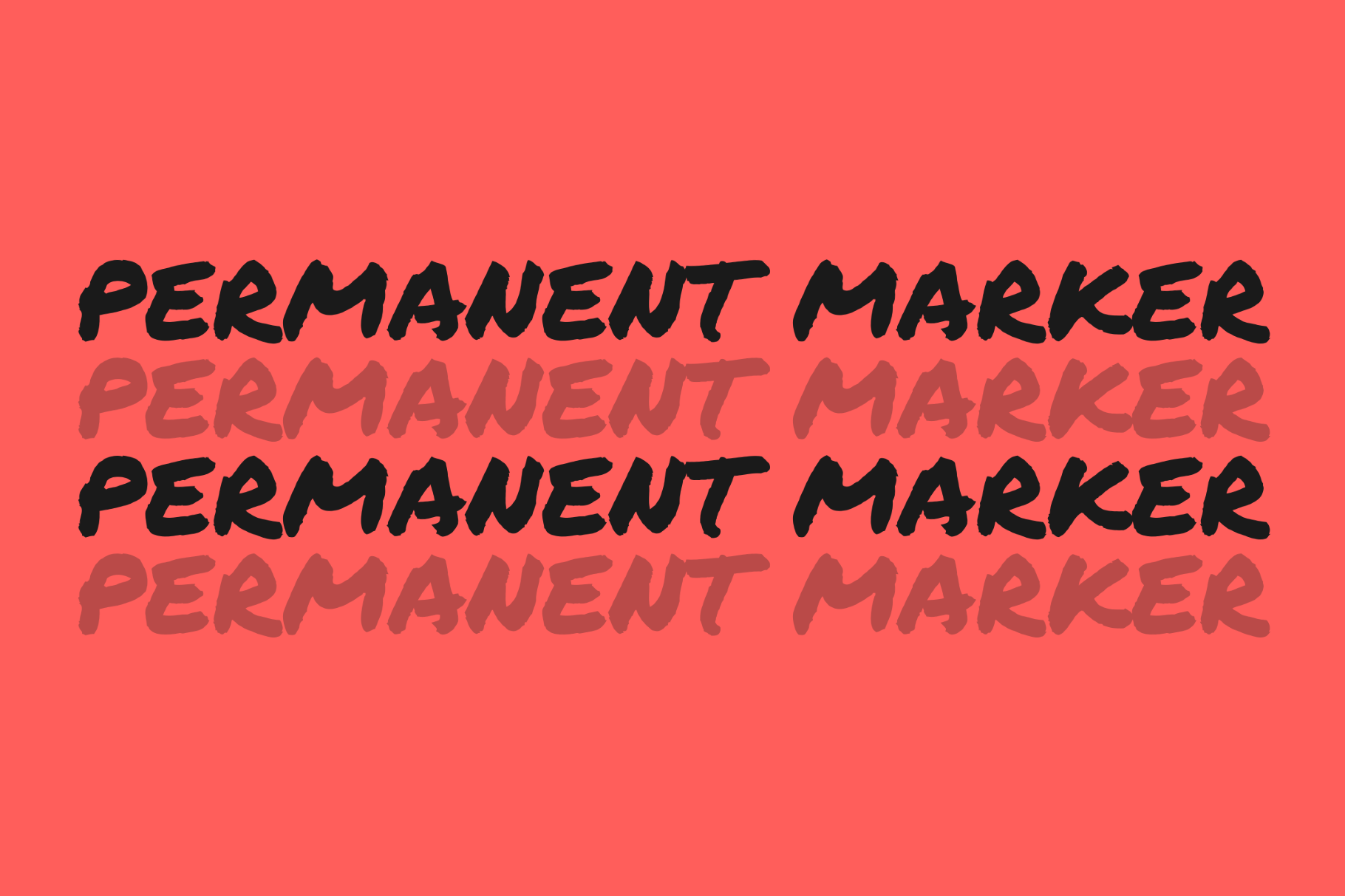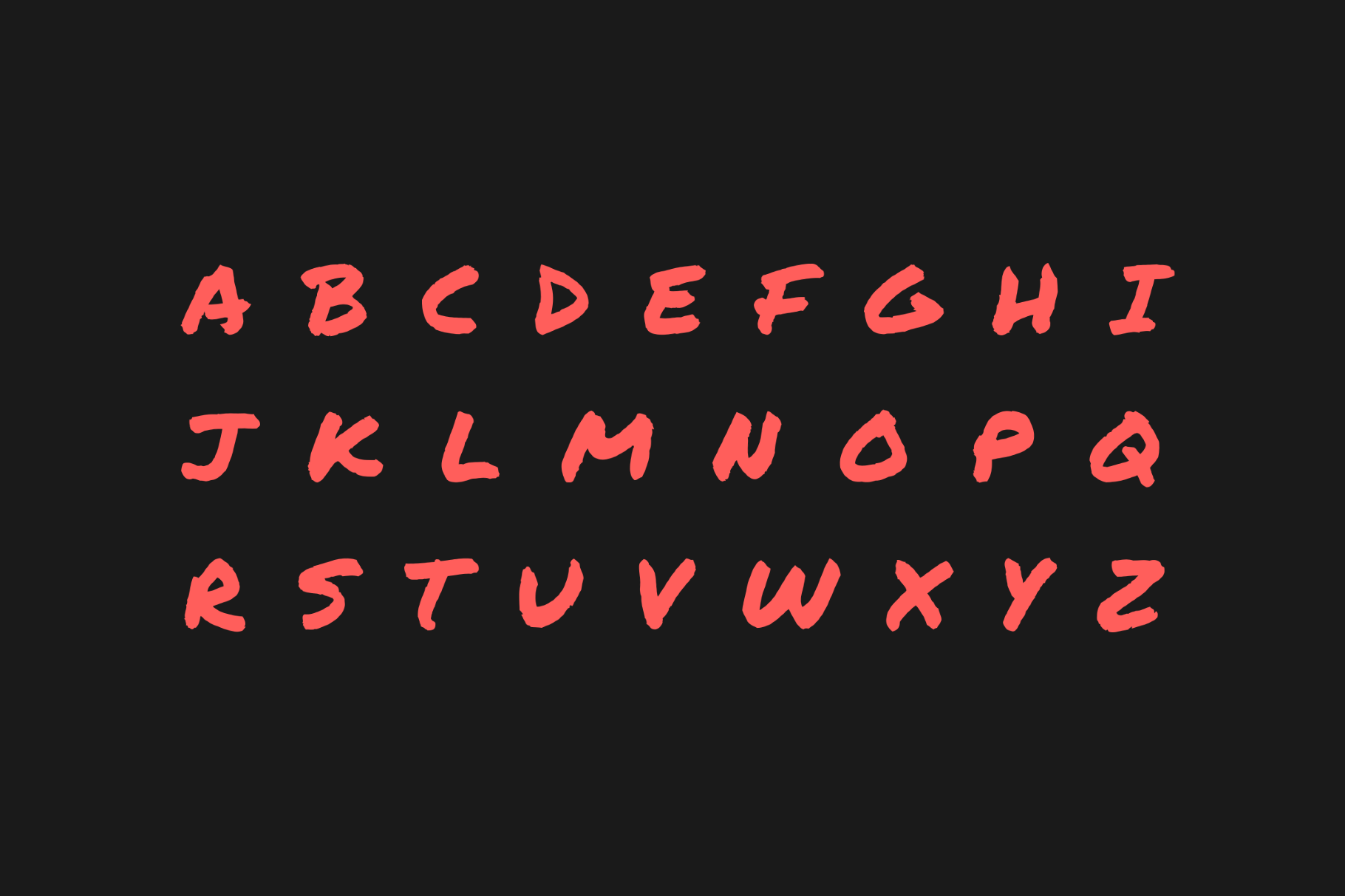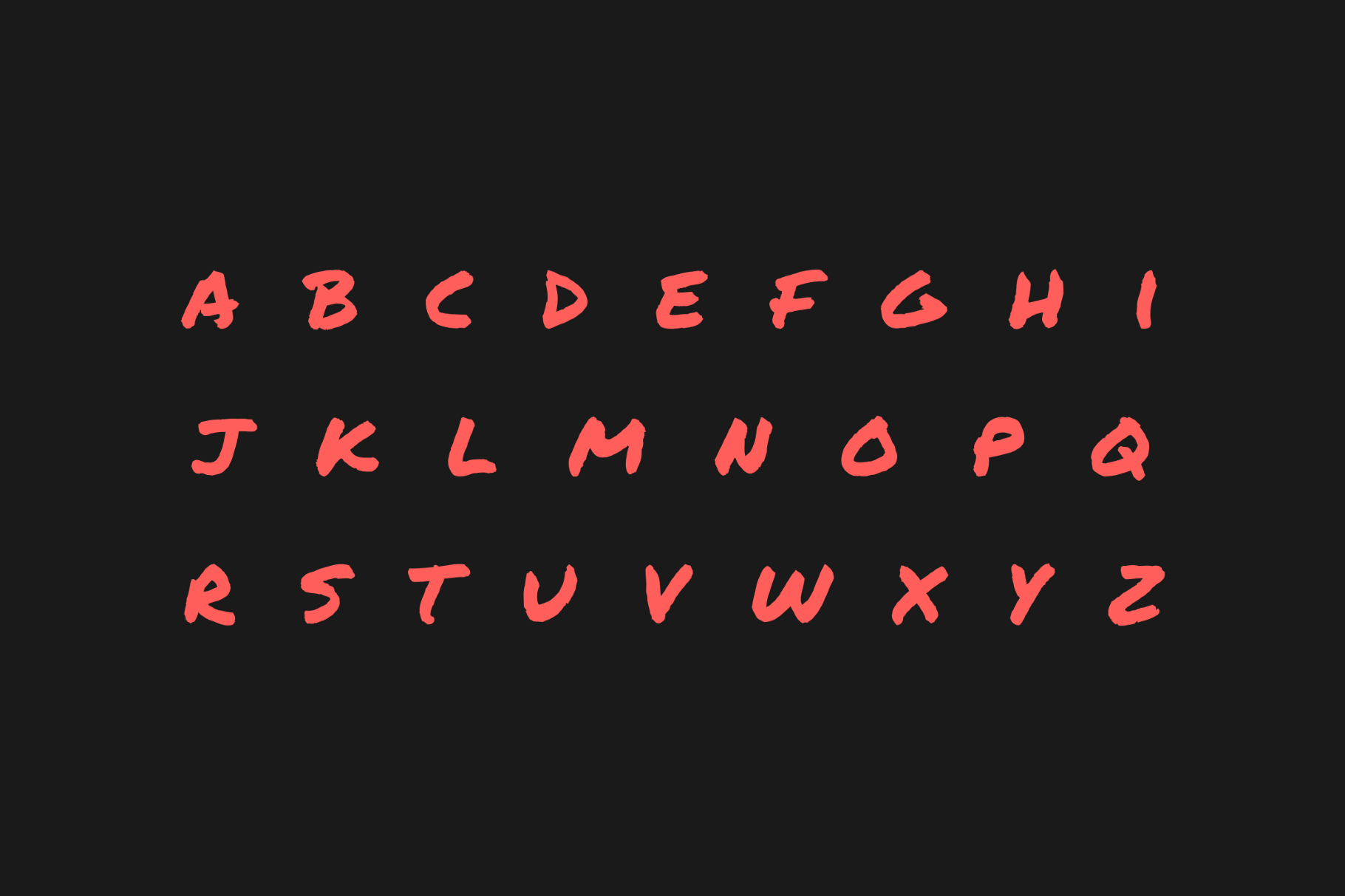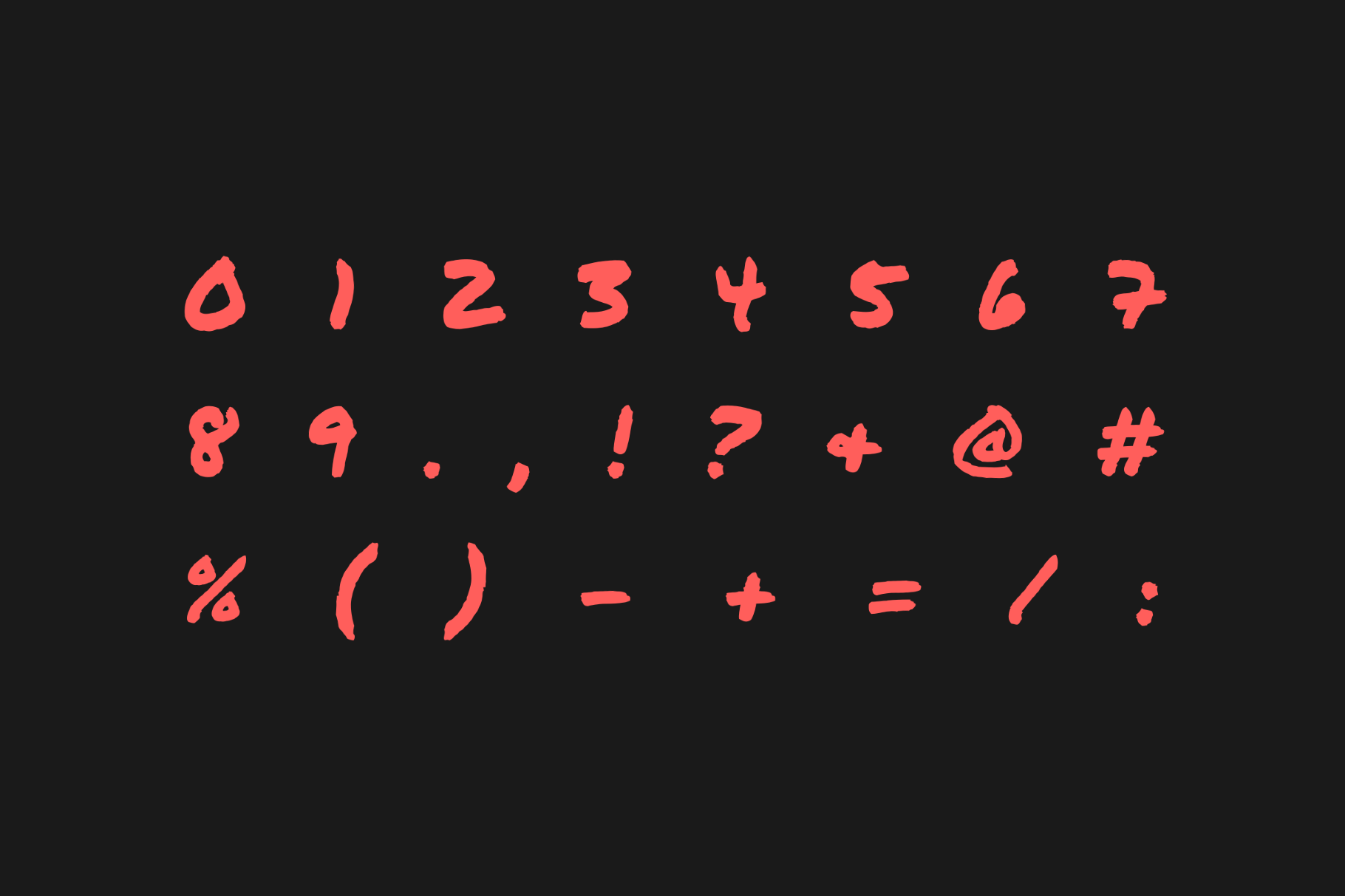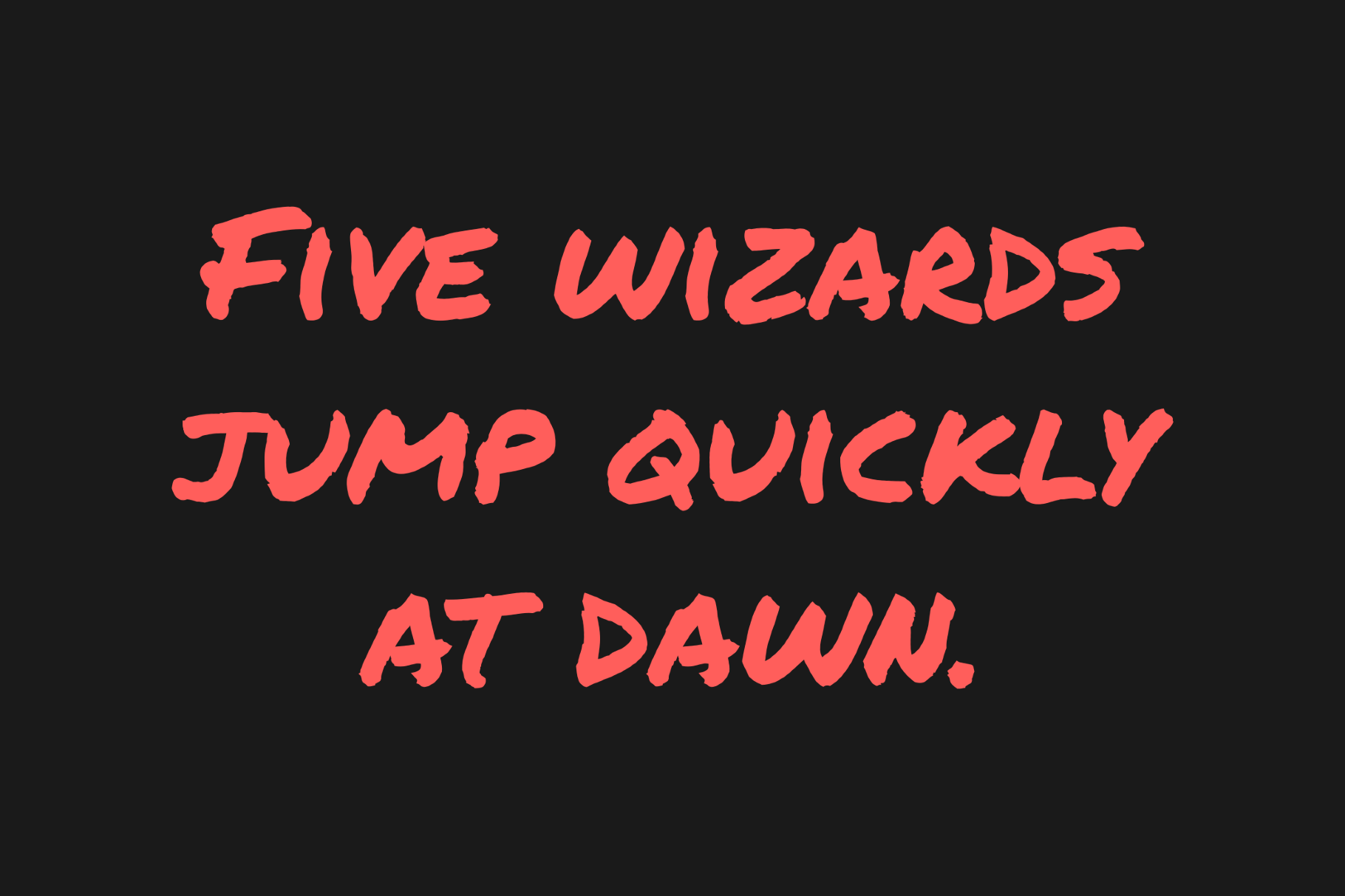
Permanent Marker Handwriting Font
PermanentMarker
Permanent Marker has the thick bleed-edged quality of a Sharpie dragged across whiteboard — the kind of lettering found on garage sale signs, cool band setlists, and grunge protest placards. Its uneven pressure and deliberately imprecise stroke give it an immediacy that polished display fonts can't fake. It works well for bold editorial callouts, DIY packaging, social media graphics, event flyers, children's book headers, and branding.